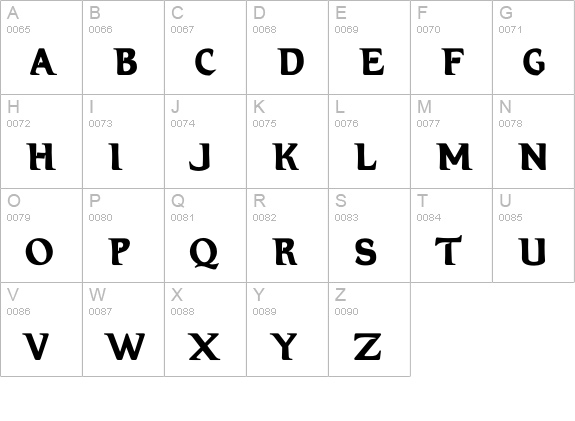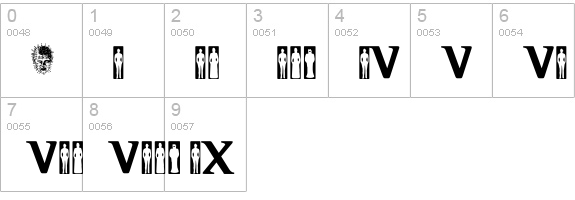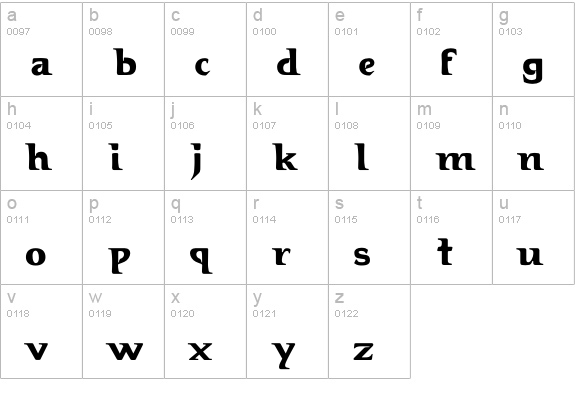
Hellraiser 3 Font Details
Introducing Hellraiser 3, a bold and captivating font that will bring an edgy and mysterious vibe to any design project. This unique typeface is perfect for those who dare to venture into the dark and embrace the unconventional. With its sharp and intricate letterforms, Hellraiser 3 demands attention and adds a touch of intrigue to any text. Whether you're designing a horror movie poster, a heavy metal album cover, or a gothic-themed website, this font will make a bold statement and leave a lasting impression. But what truly sets Hellraiser 3 apart is its versatility and adaptability. It can seamlessly transition between elegant and sinister, allowing you to play with different moods and atmospheres. Its distinctive style will evoke a sense of mystery and captivate your audience, making it the perfect choice for any project that requires a touch of darkness. And here's the best part - Hellraiser 3 is freely available to download at FontsMarket.com. Yes, that's right, you can get your hands on this remarkable font without spending a dime. So, whether you're a professional designer or just someone with a passion for creativity, Hellraiser 3 is accessible to all. Don't miss out on this extraordinary opportunity to enhance your designs with a font that embodies the essence of the macabre. Download Hellraiser 3 from FontsMarket.com today and let your imagination run wild. Unleash the power of this captivating typeface and create designs that will leave a lasting impression.